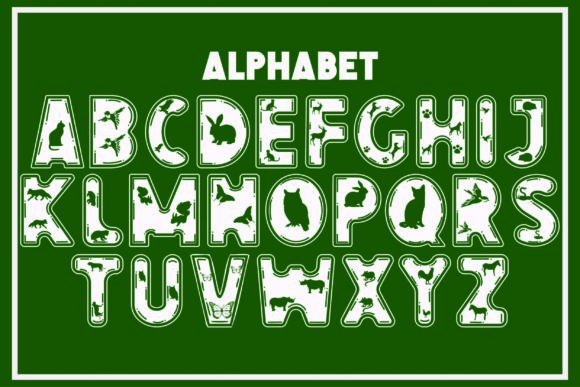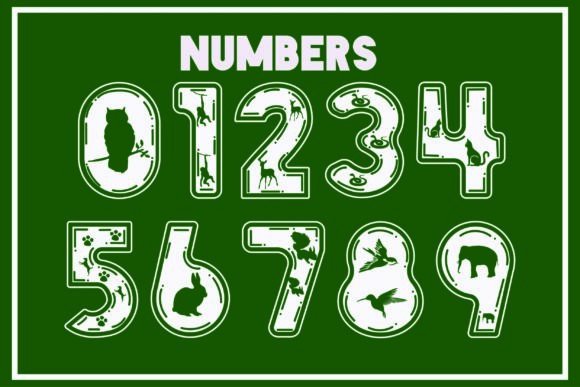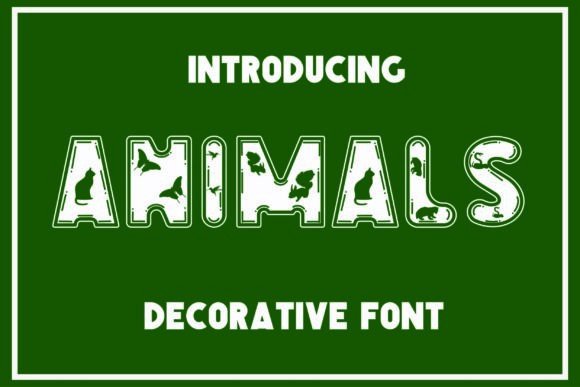
The Joy of Animals Font: A Playful Twist for Your Designs
I’ll never forget the time I was working on a project for a children’s birthday party, and I just couldn’t find the right font to match the playful theme. The client wanted something fun, something that would make their little ones giggle with excitement. That’s when I stumbled upon Animals Font, and let me tell you, it was love at first sight! 💕
This decorative font is like nothing I’ve ever seen before. It features adorable animals as ornaments, adding an incredibly joyful touch to any design. In this article, I’ll share my honest review, a practical guide on how to use it, and some helpful tips and tricks to get the most out of Animals Font.
- ✅ Unique and playful design that adds a touch of whimsy to any project
- ✅ Wide range of animal ornaments to choose from, making it perfect for themed designs
- ✅ Easy to use and pairs well with a variety of fonts and design styles
- ✅ Perfect for children’s designs, but also great for adults who love a playful touch
- ⚠️ Some of the animal ornaments can be a bit intricate, so they might not work well at very small font sizes
- ⚠️ Limited character set, so it might not be suitable for body text or long paragraphs
The Story Behind Animals Font
Animals Font was created by a young designer who wanted to bring a touch of whimsy and playfulness to the world of typography. Growing up, she was always fascinated by animals and loved drawing them in her free time. One day, she decided to combine her passion for animals with her love of design and created Animals Font. The font quickly gained popularity among designers and crafters, and it’s now used in a wide range of projects, from children’s books to party invitations.
| Font Name | Animals Font |
| Author | CHEETAH DOODLE |
Q: What type of designs is Animals Font best suited for?
A: Animals Font is perfect for designs that require a playful and whimsical touch, such as children’s party invitations, birthday cards, and kids’ educational materials.
Q: Is Animals Font available in different languages?
A: Currently, Animals Font is only available in English, but the designer is working on adding more languages in the future.